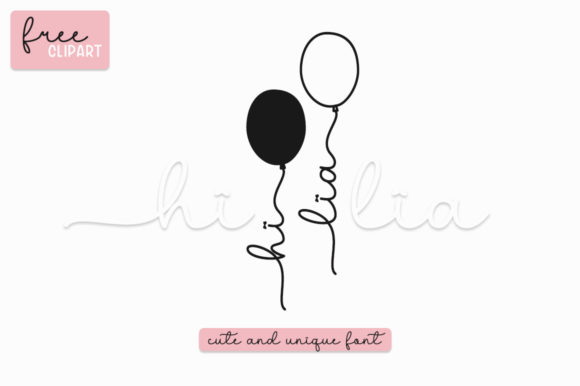
Hi Lia is an incredibly distinct, delicate and timeless handwritten font. It is PUA encoded which means you can access all of the glyphs and swashes with ease!
Hi Lia Font